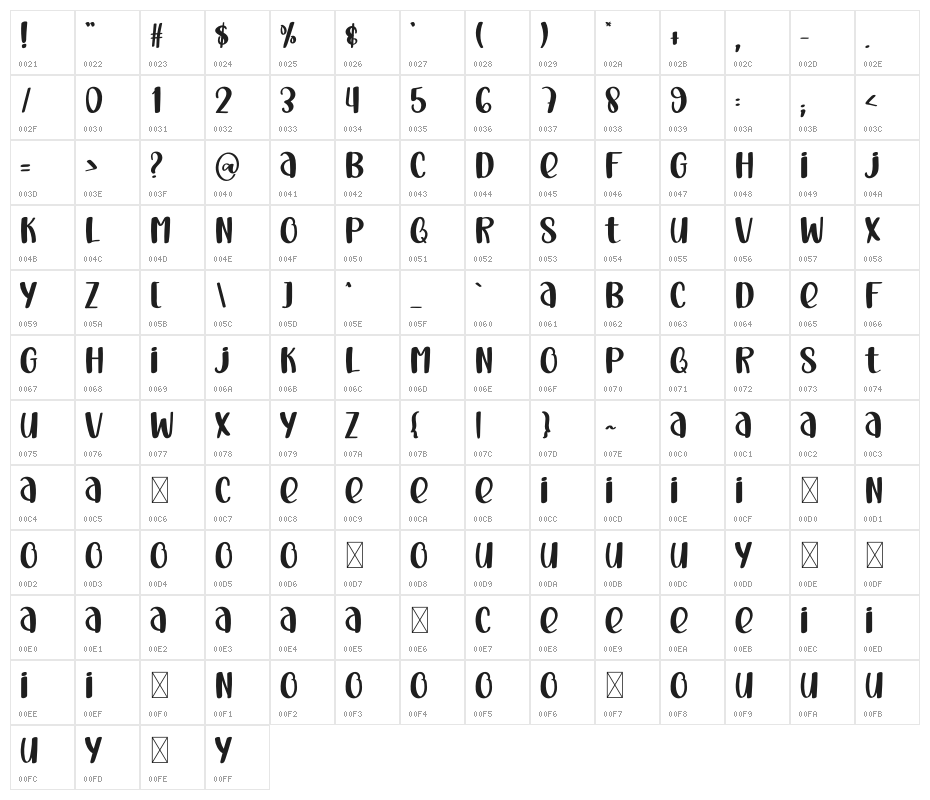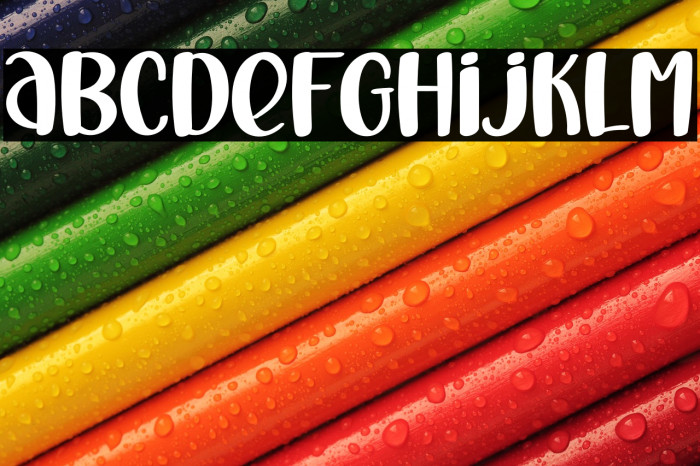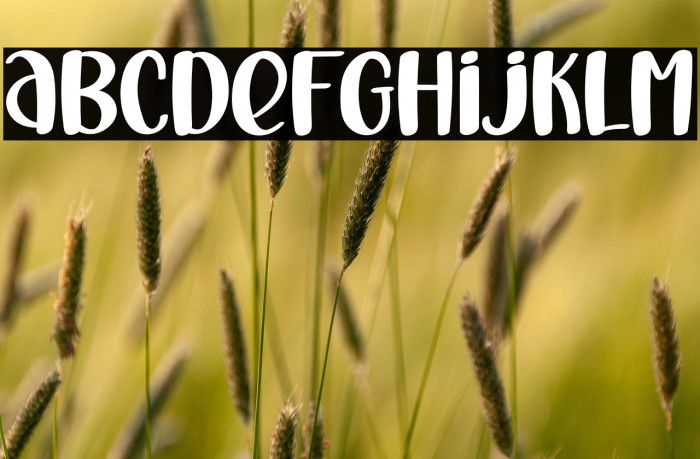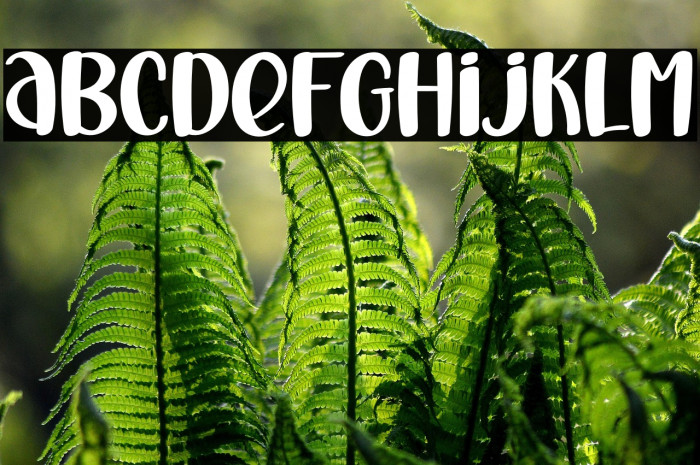
Vitamin Sea Font
Vitamin Sea Description
This font features a bold and playful script style with a hand-drawn appearance. The letters are rounded and have a consistent thickness, giving them a friendly and approachable look. The uppercase and lowercase letters maintain a cohesive style, with slight variations in the curves and loops that add a touch of whimsy. The numerals are equally bold and maintain the playful aesthetic, making them easily readable. Special characters are included, matching the overall style with a consistent weight and playful curves. This font is perfect for projects that require a fun and lively touch.
| Proposed Projects | Ideal for greeting cards, children's books, playful branding, and social media graphics. |